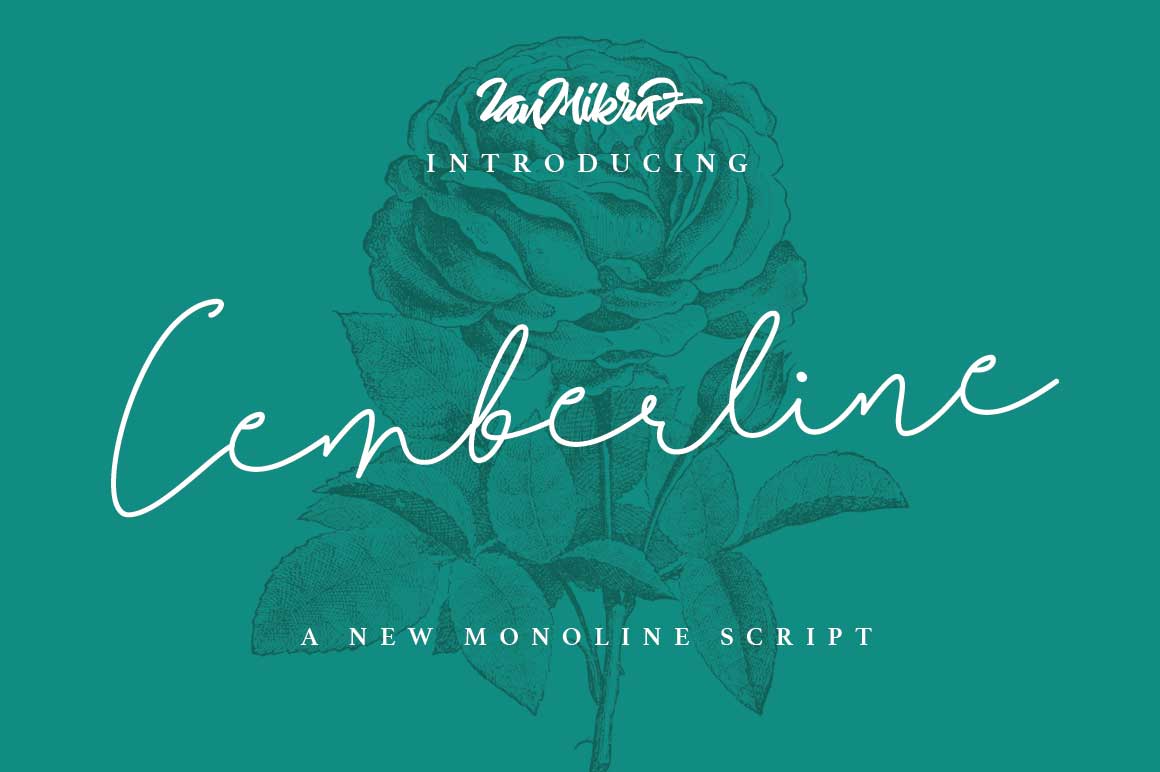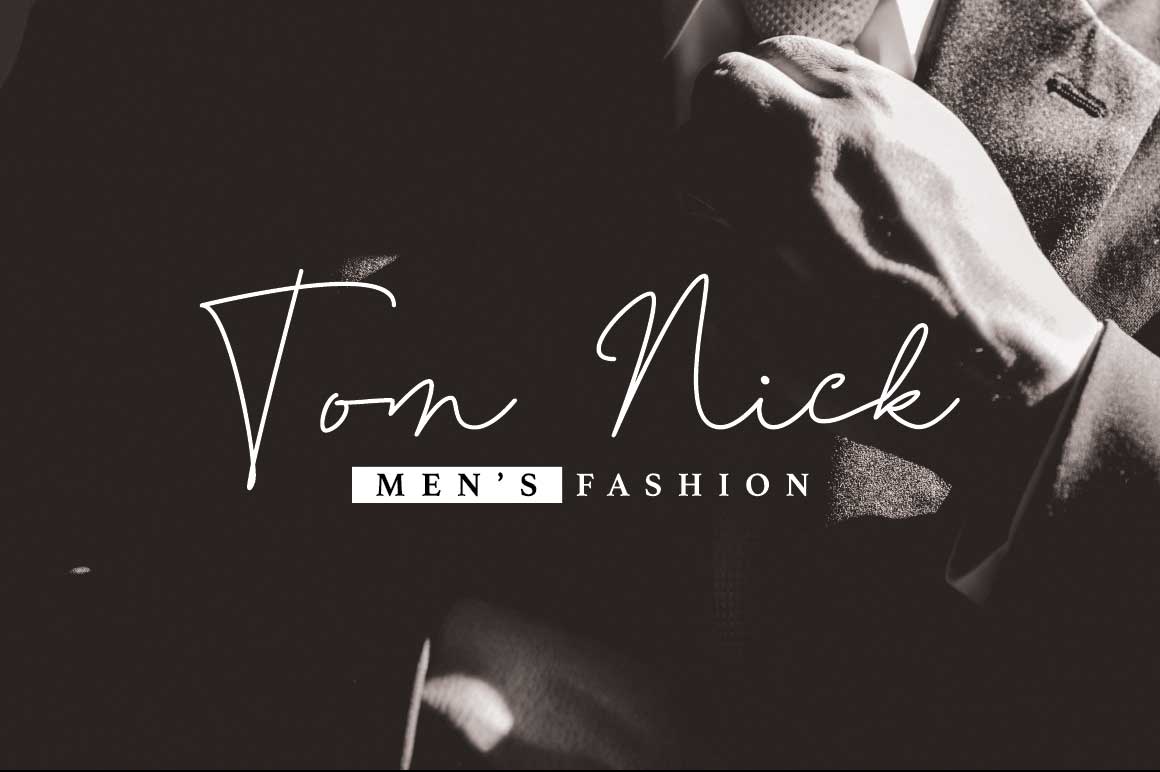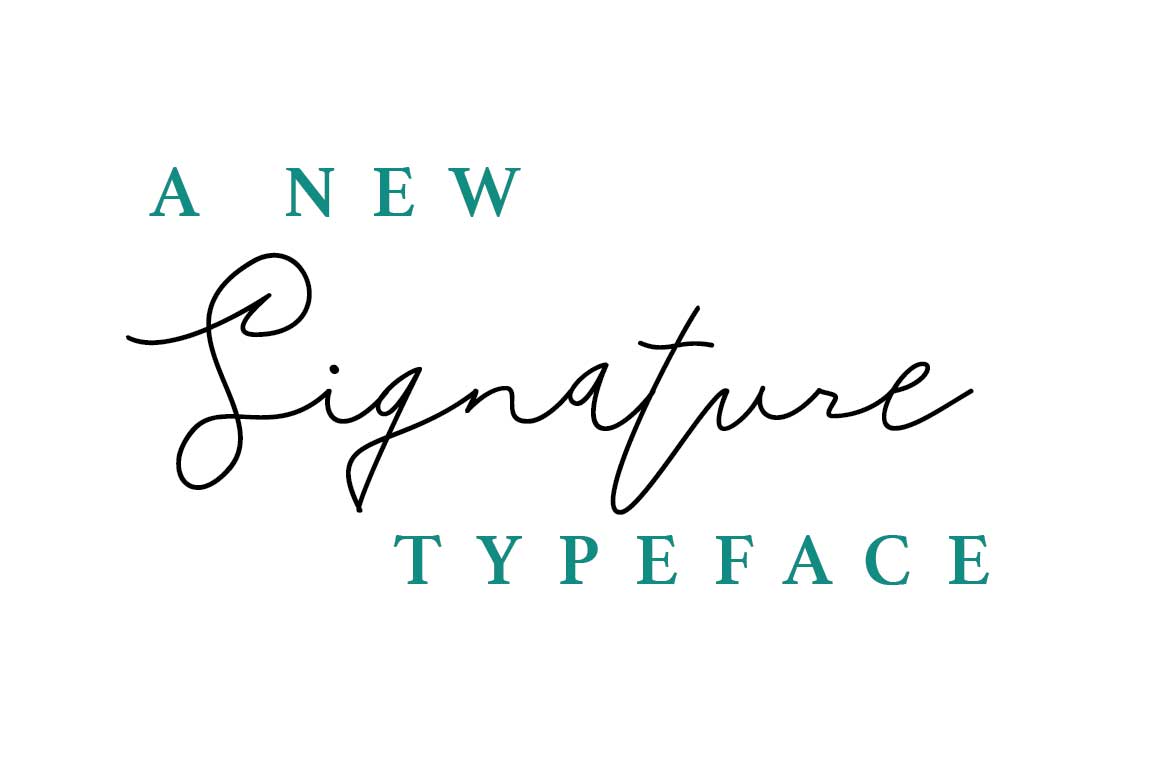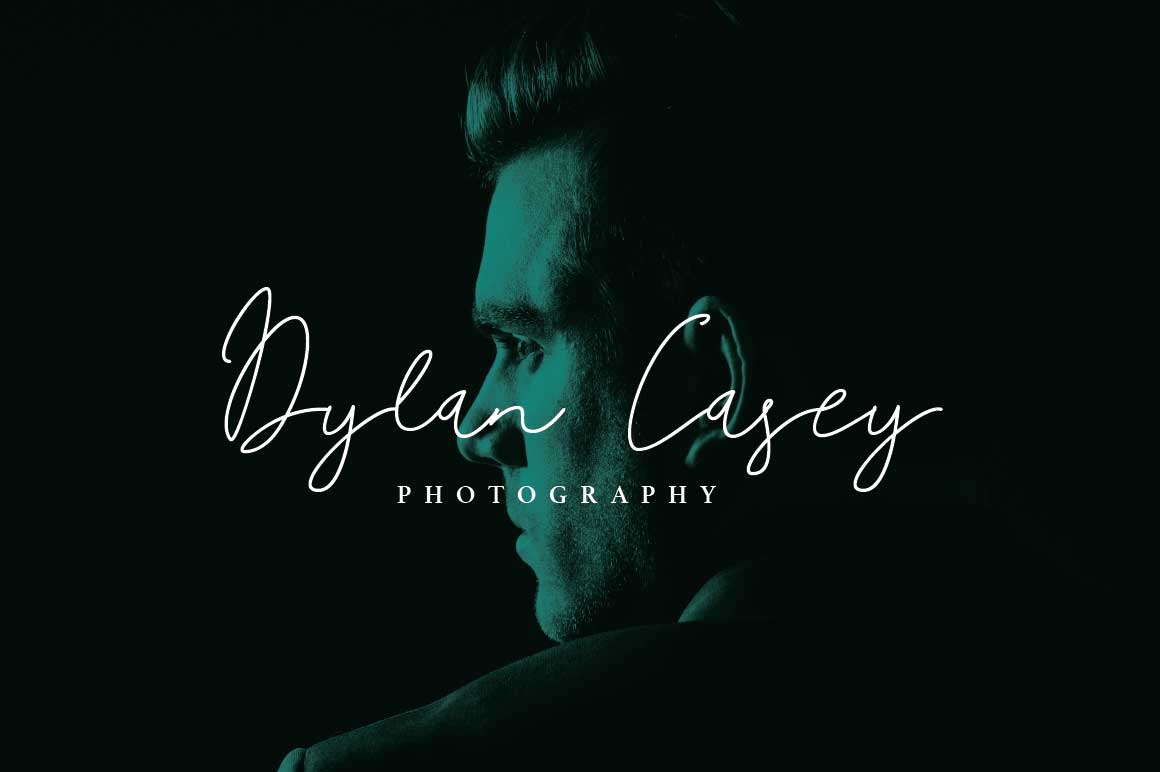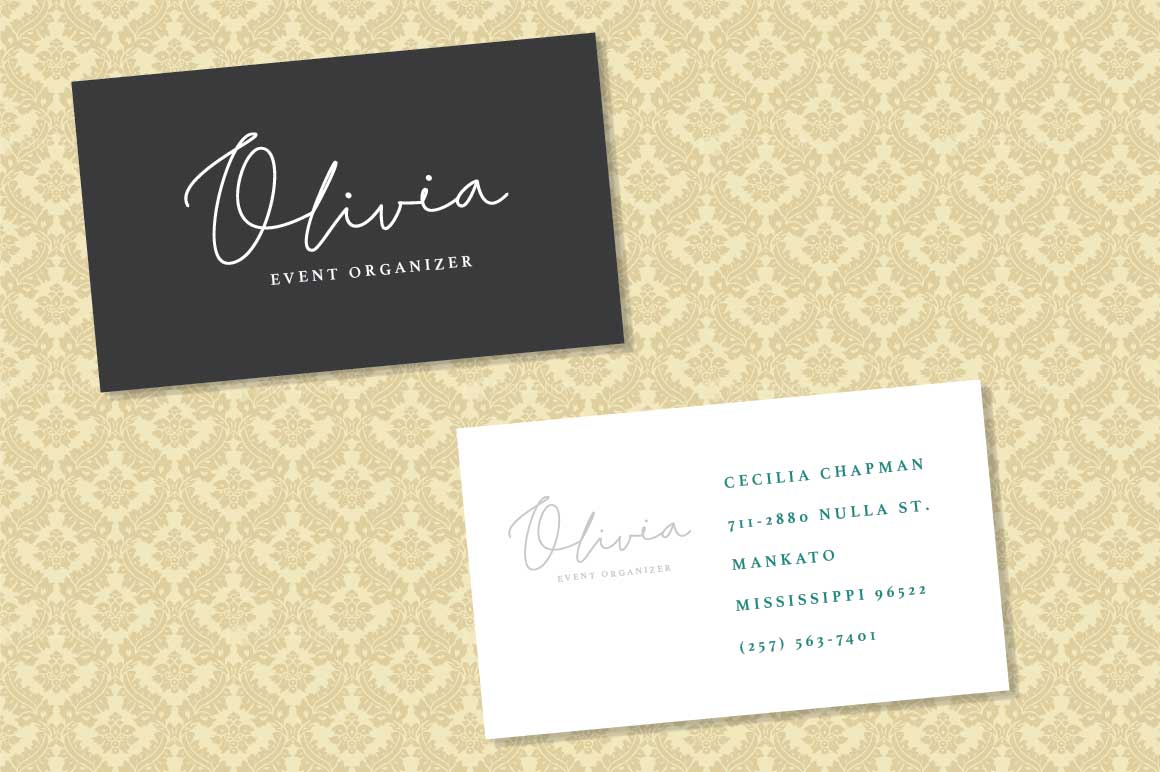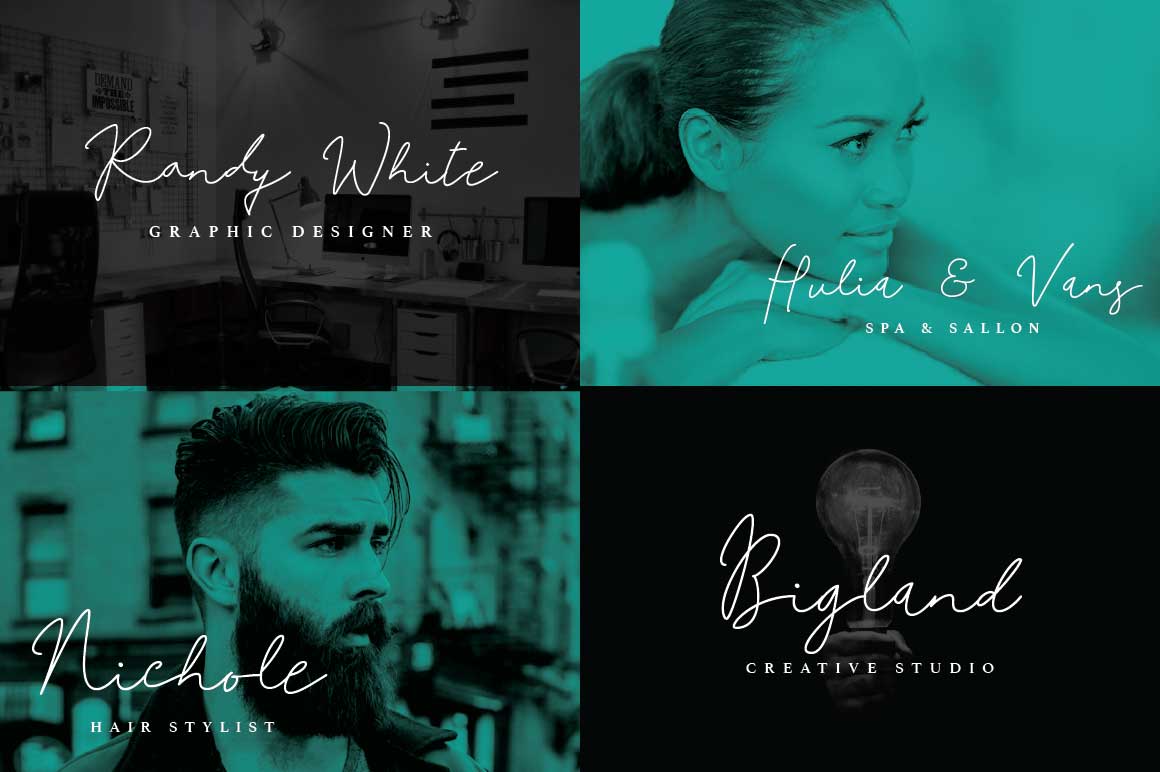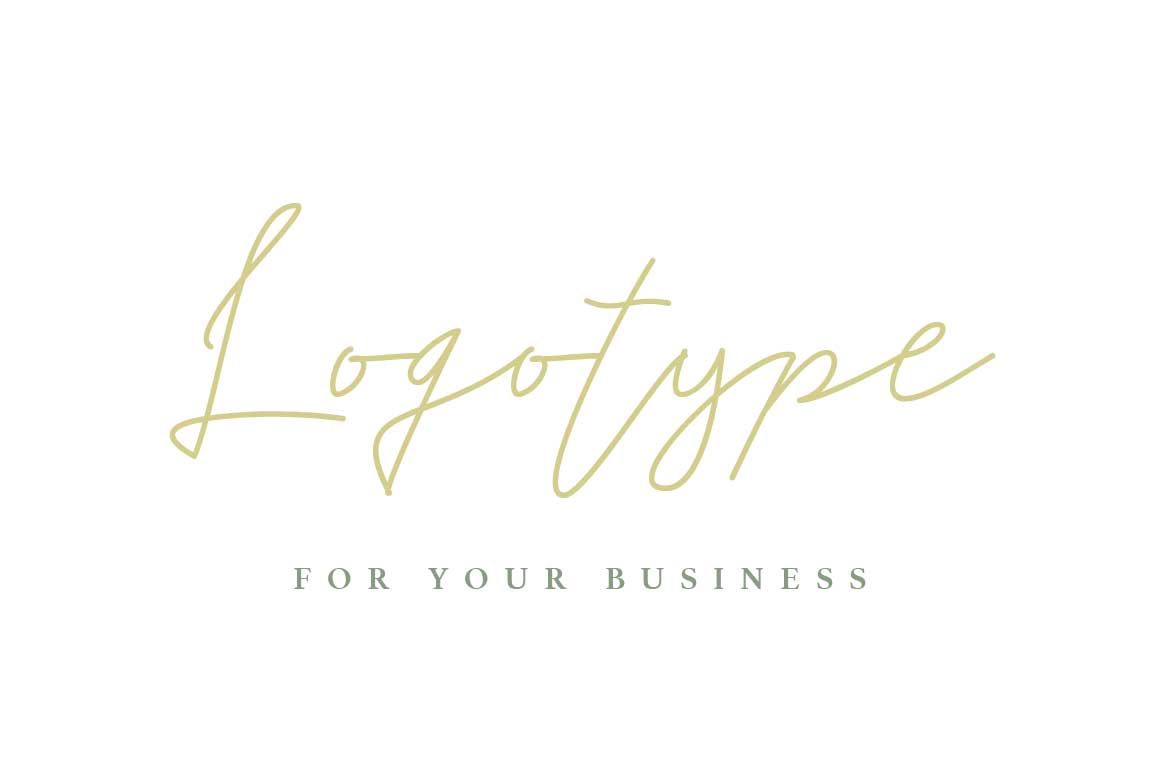
Cemberline Font
About Cemberline Font
Cemberline is a new monoline script typeface, beautifully flowy and minimal. This is font that is contemporary but that can add an elegant touch to your projects.